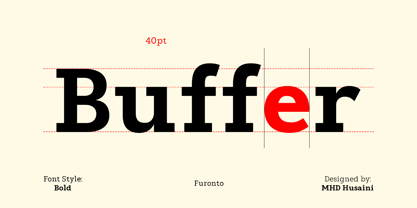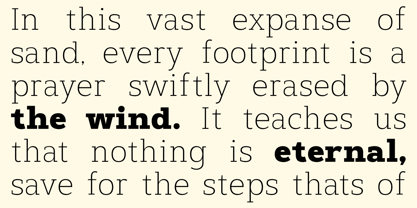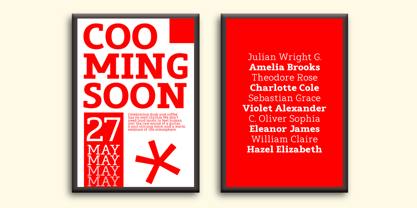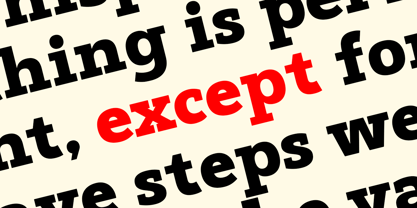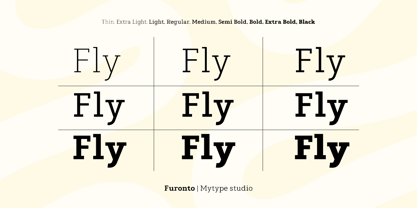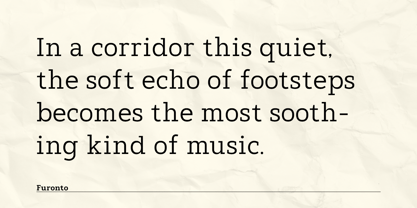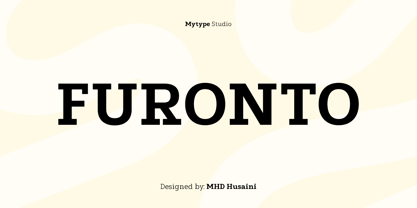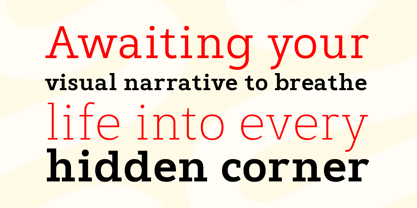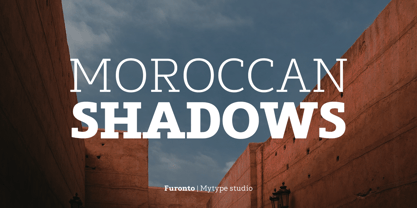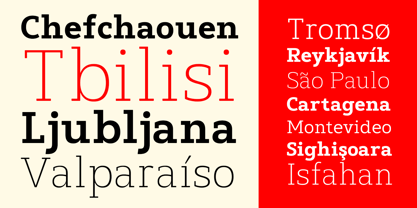
Furonto
by SimpleType Studios
The Furonto Font Family was designed by Mhd Husaini and published by SimpleType Studios. Furonto contains 9 styles and family package options. More about this family
Introducing Furonto, a bold yet understated slab serif that commands attention without sacrificing clarity. Designed for modern branding, editorial layouts, and impactful headlines, Furonto strikes the perfect balance between rugged character and clean geometry. Every letterform is crafted with sturdy slab serifs, consistent stroke weights, and a confident stance—making Furonto ideal for both print and digital applications. Whether you're designing posters, logos, websites, or packaging, this font delivers a powerful, no-nonsense presence with a touch of warmth. With its versatile weights and OpenType features, Furonto is perfect for creating memorable brand identities and engaging editorial content.
Designers: Mhd Husaini
Foundry: SimpleType Studios